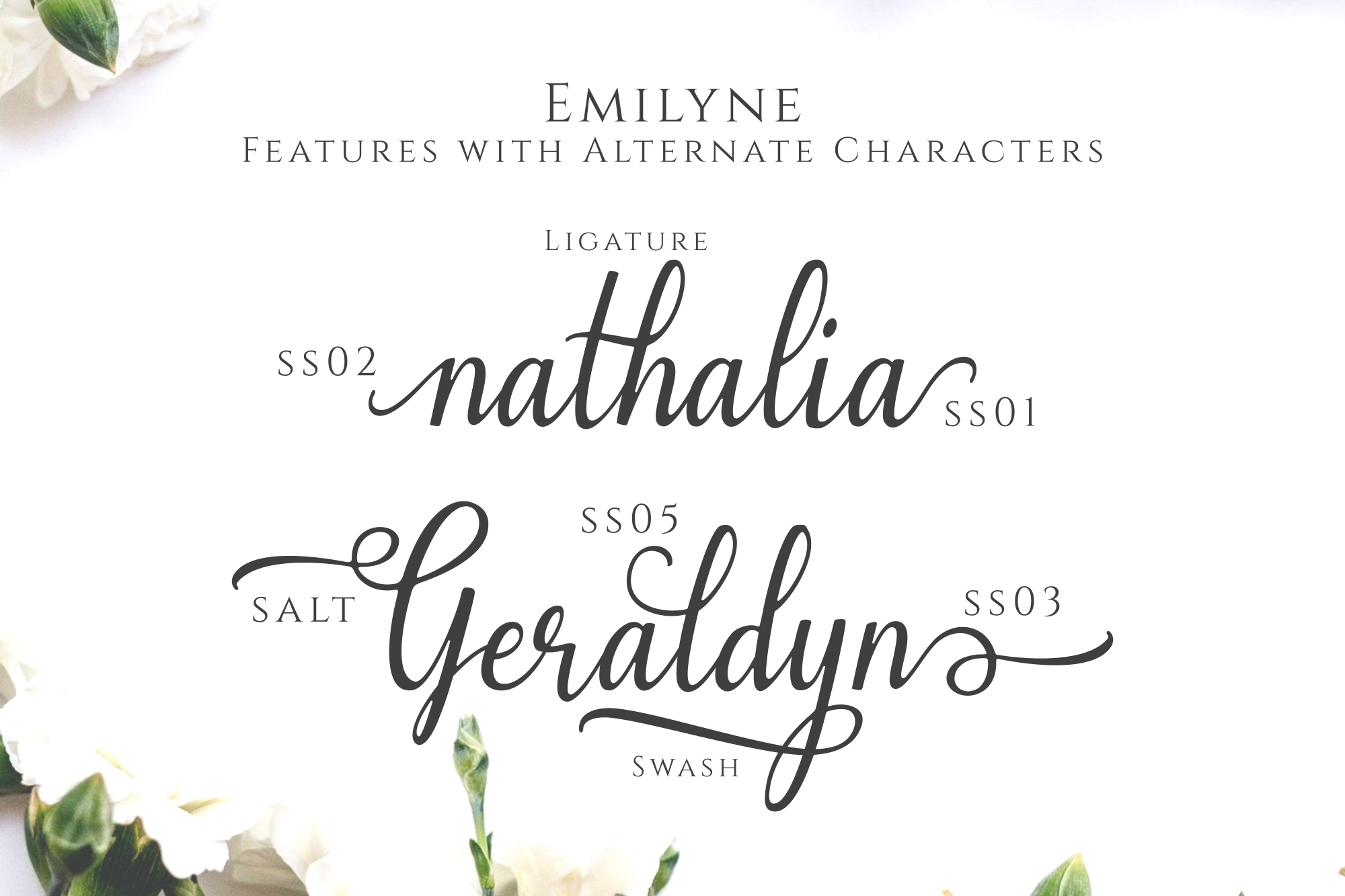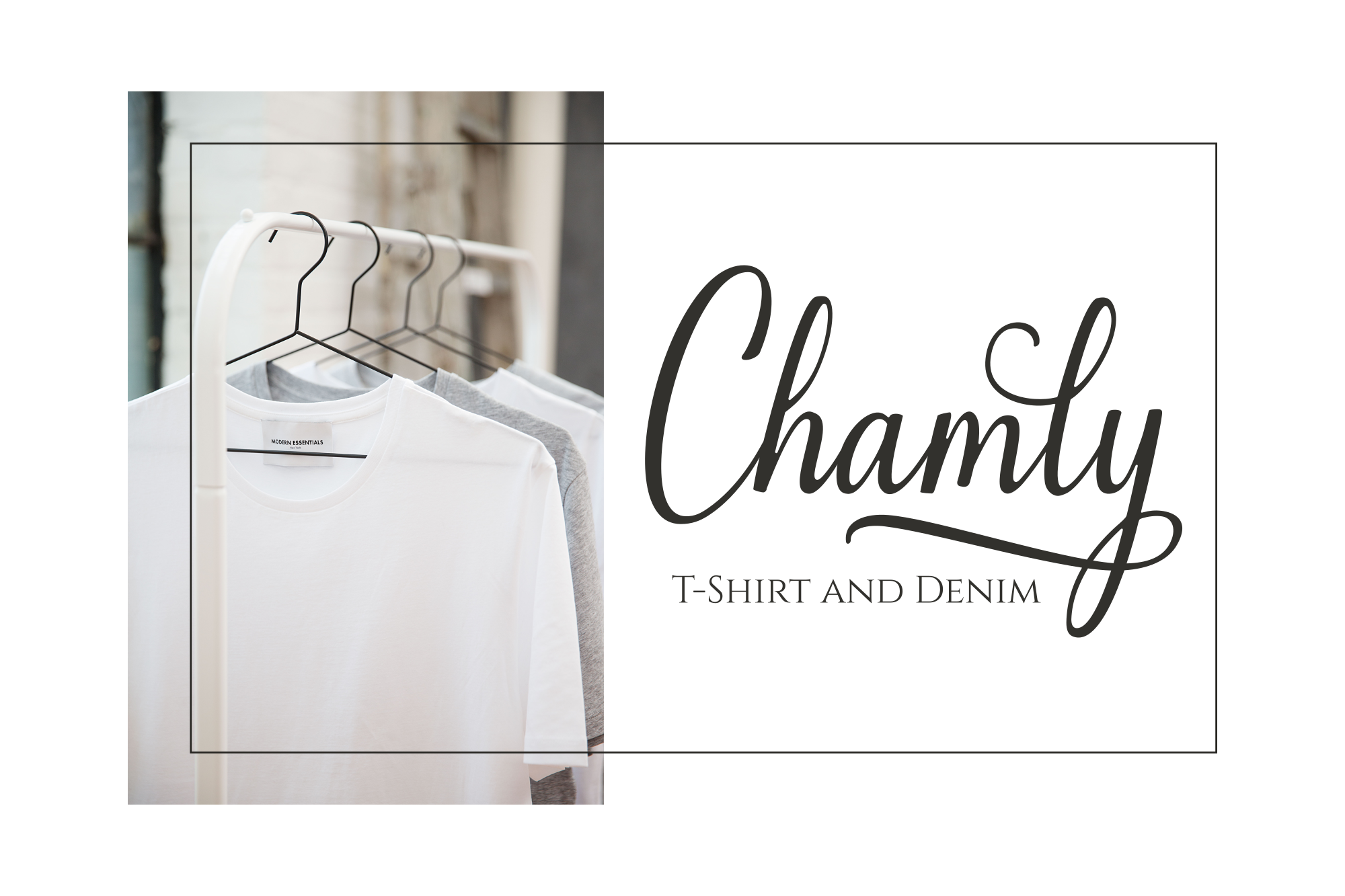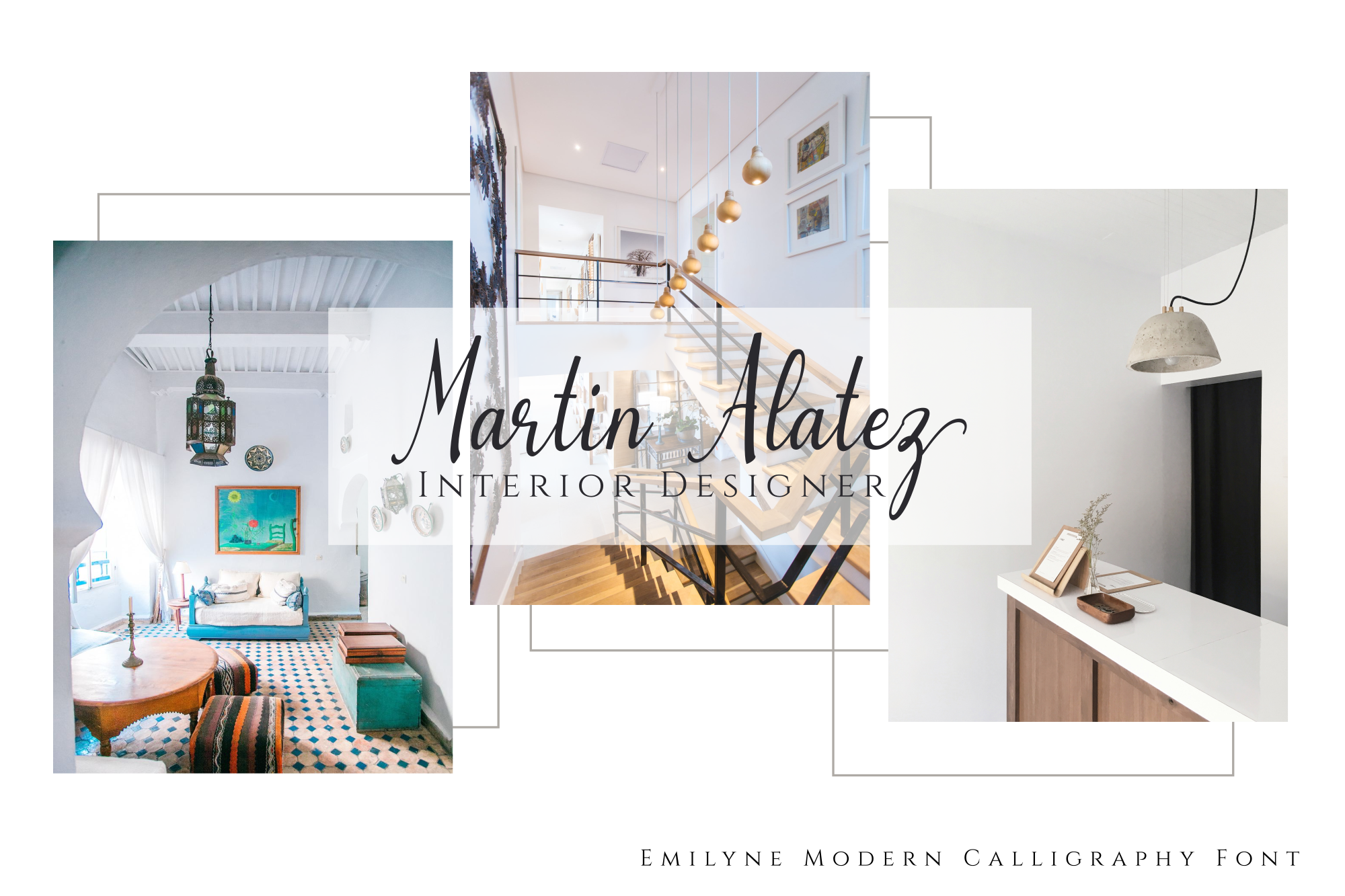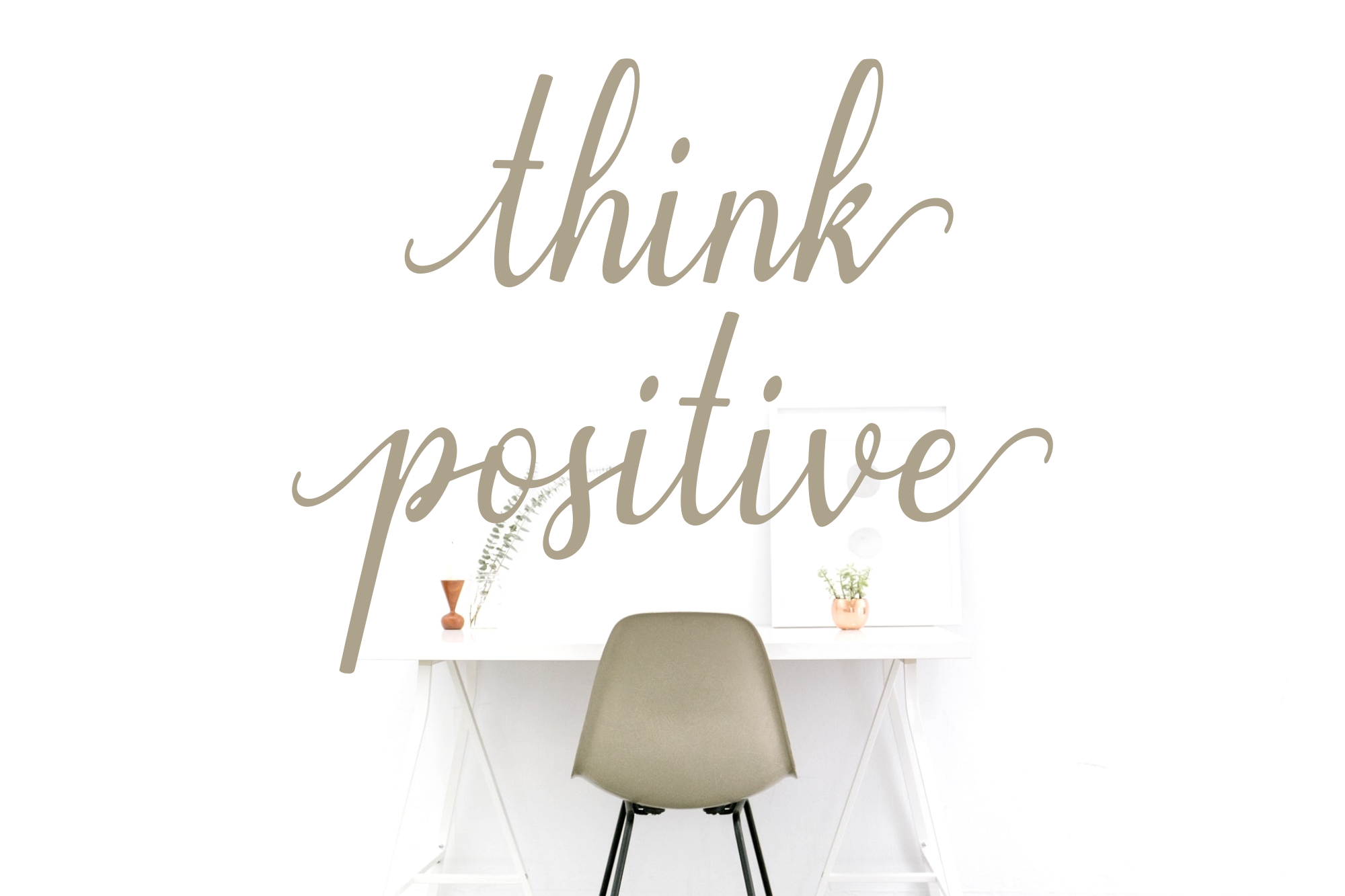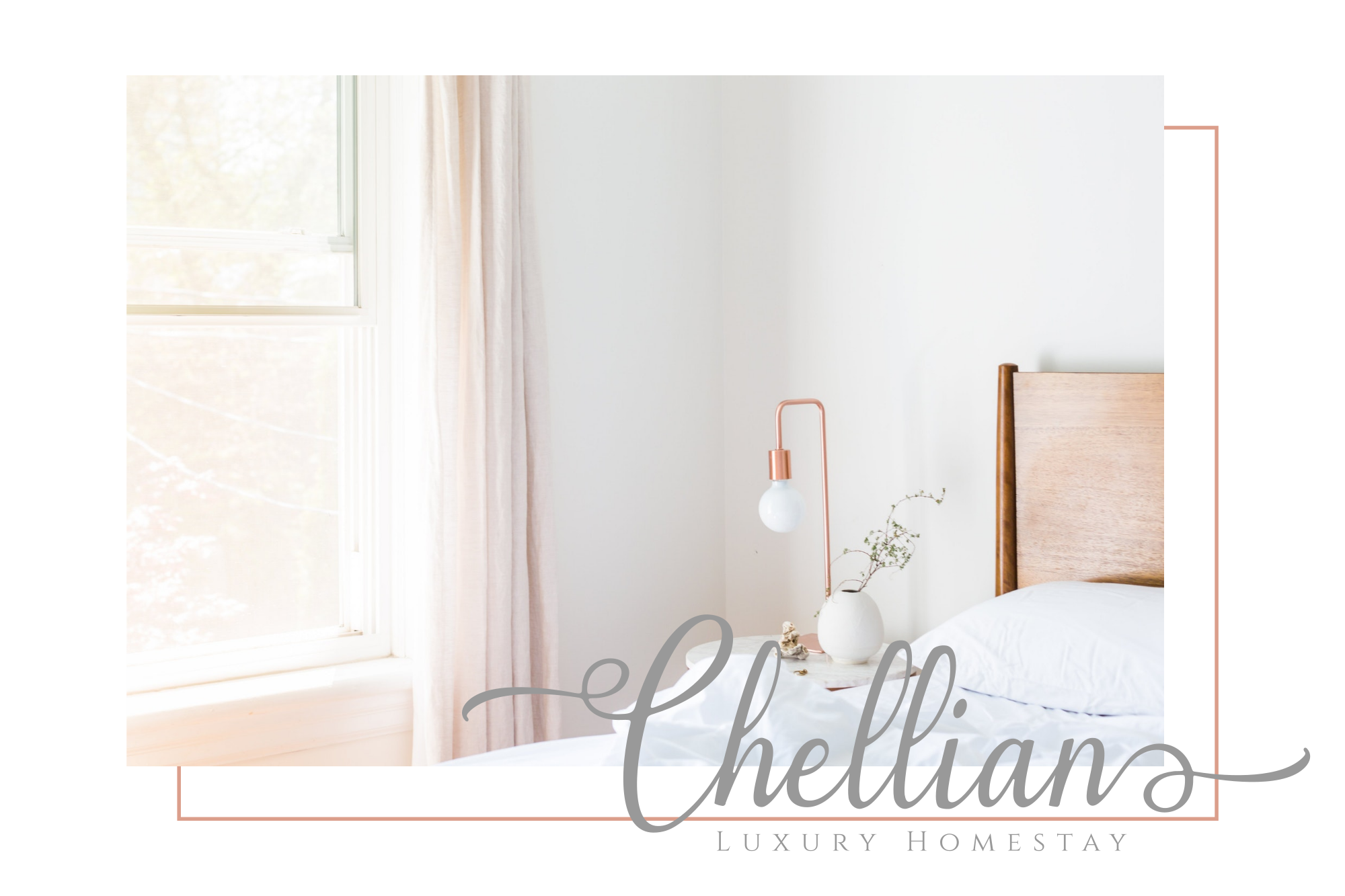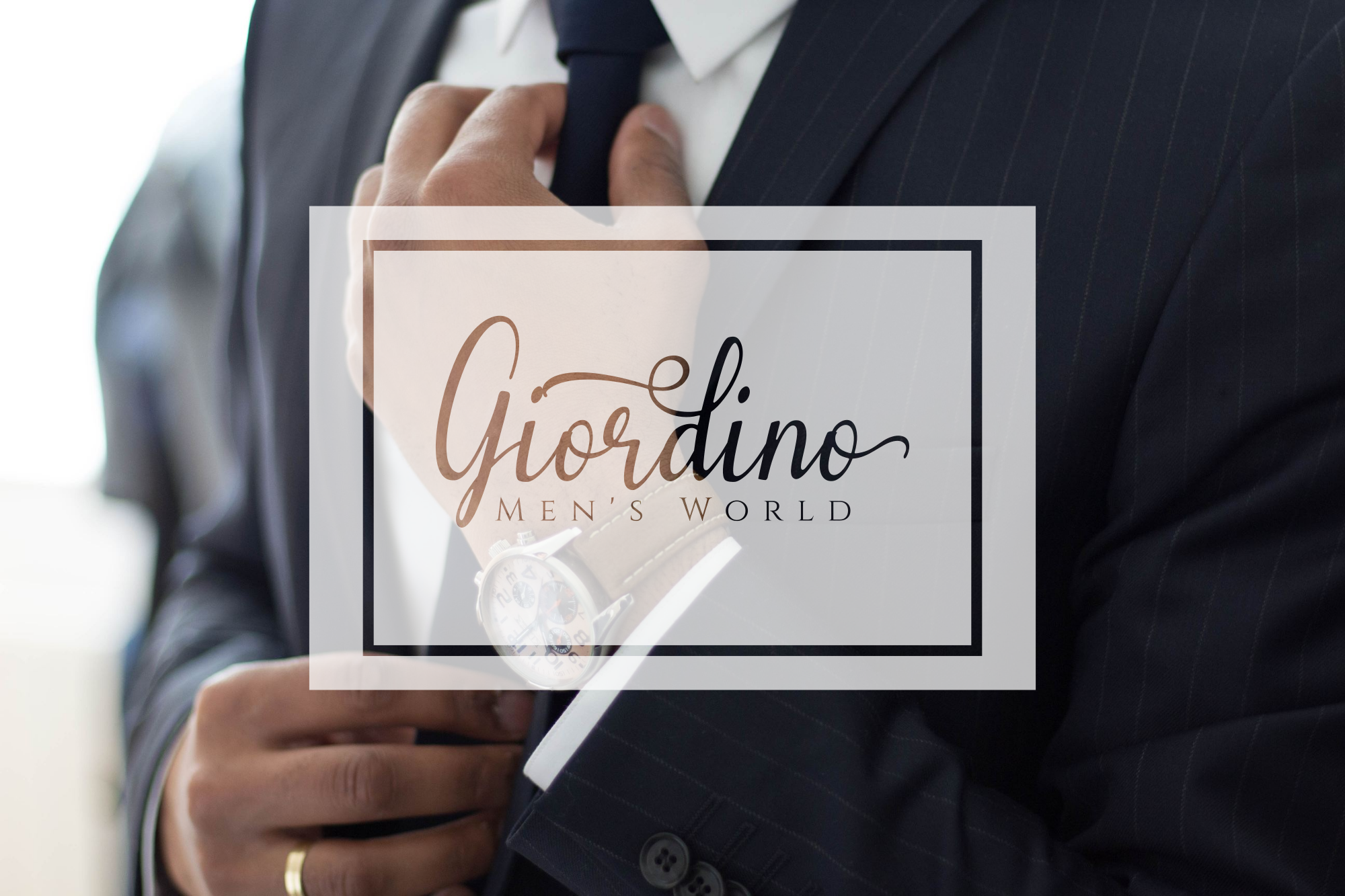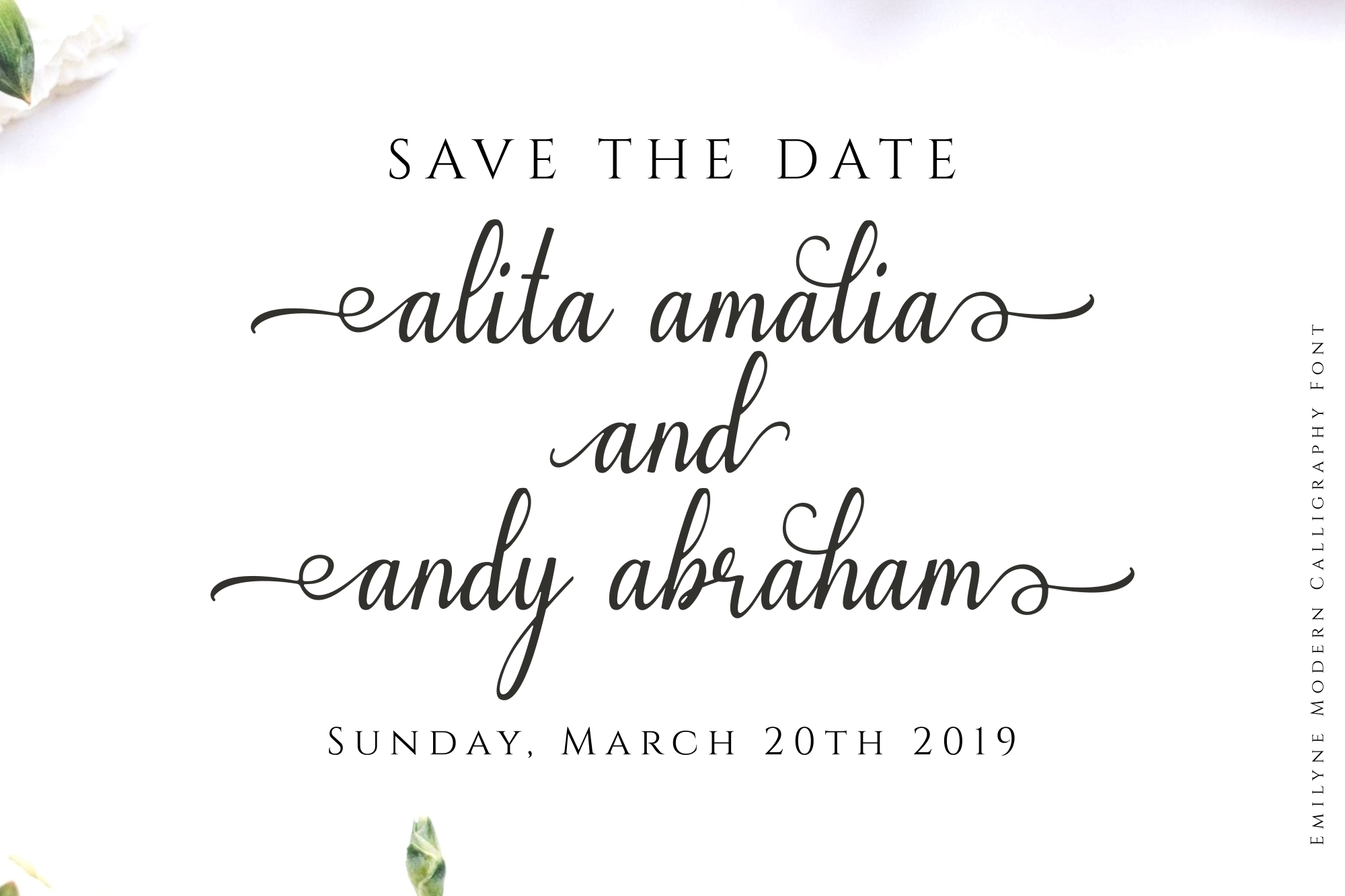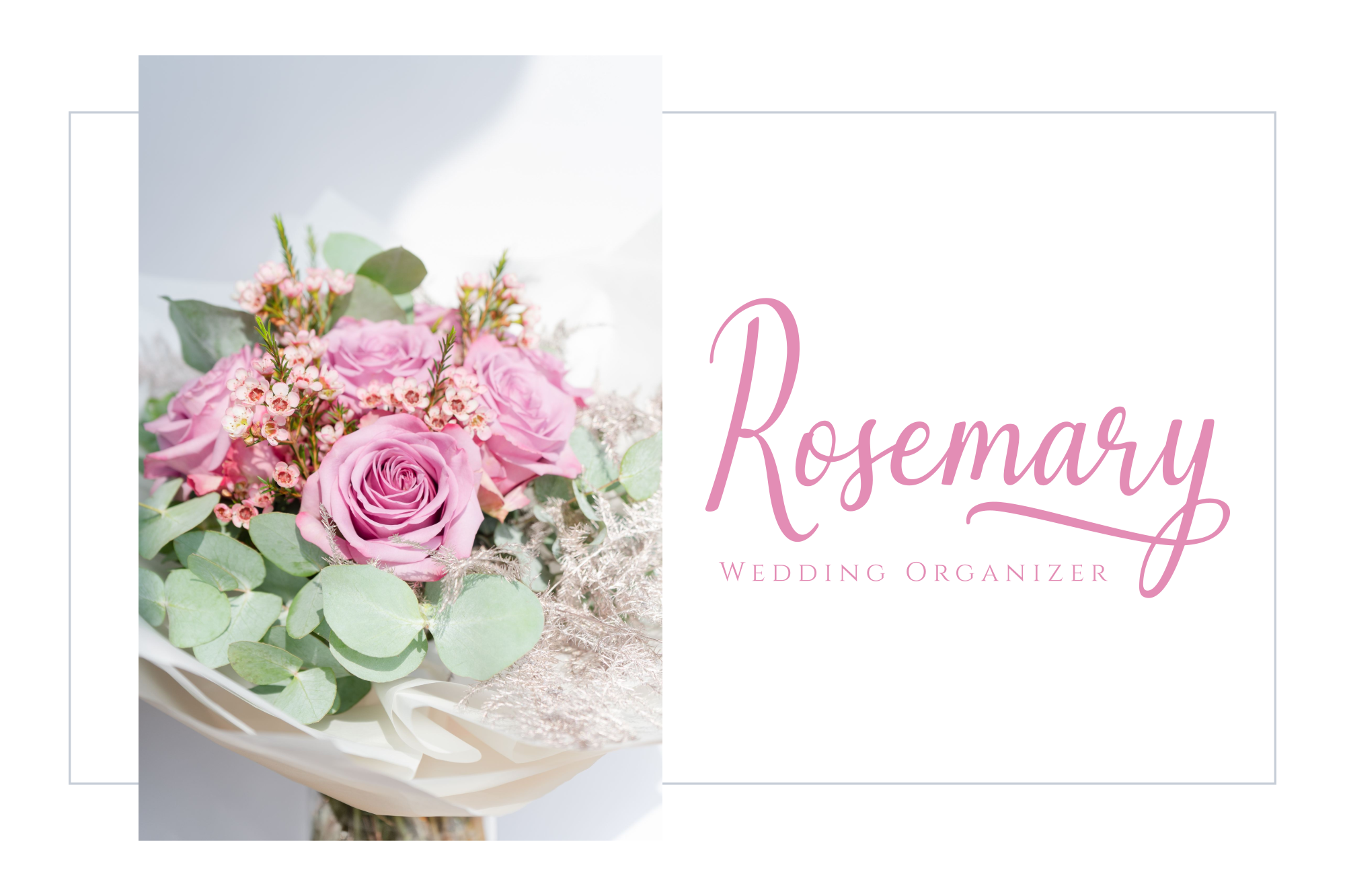
Emilyne - Calligraphy Font
Emilyne is a sweet hand-lettered calligraphy font with beautiful swashes and alternates. It gives your typography an elegant and decorative look.
Emilyne is a sweet hand-lettered calligraphy font with beautiful swashes and alternates. It gives your typography an elegant and decorative look. It is perfect for logos, product packaging, wedding invitations, branding, headlines, signage, labels, signatures, book covers, posters, quotes, and much more.
Logos, product packaging, wedding invitations, branding, headlines, signage, labels, signatures, book covers, posters, quotes, and much more